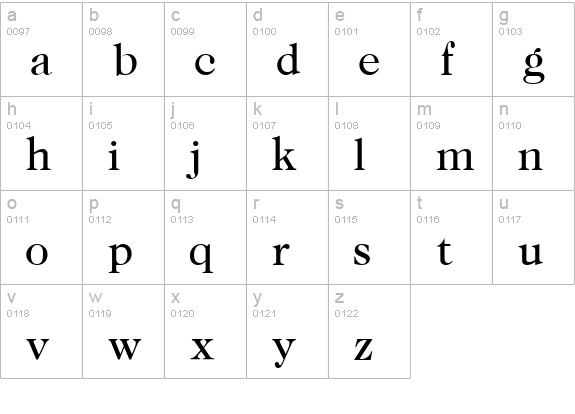
Caslon Regular Font Details
Caslon Regular is the standard, neutral variant in the Caslon typeface family \xE2\x80\x94 well suited to general body text, paragraphs, and standard typographic work.
Caslon Regular is a classic and timeless serif font that exudes elegance and sophistication. With its refined letterforms and delicate serifs, Caslon Regular is the perfect choice for projects that require a touch of traditional charm. The balanced proportions and clear legibility make this font versatile and suitable for a wide range of design applications. What sets Caslon Regular apart is its versatility – it can be used for anything from editorial layouts to branding materials with ease. The font's timeless appeal ensures that it will never go out of style, making it a reliable choice for designers looking to create impactful and memorable designs. Best of all, Caslon Regular is available for free download at FontsMarket.com. Whether you're a seasoned designer or just starting out, this font is a valuable addition to your font library. Don't miss out on the opportunity to enhance your projects with the classic beauty of Caslon Regular. Download it today and elevate your designs to the next level.